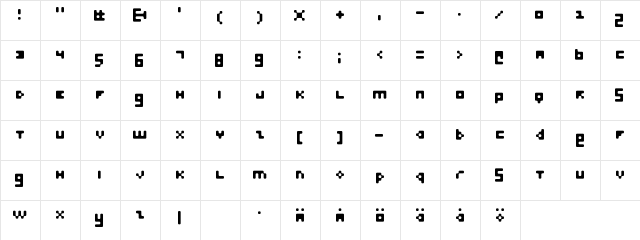
Felvetica Regular
Design Context for Felvetica Typeface
Felvetica takes a measured approach to typography — its balanced proportions and neutral character make it a reliable workhorse for both digital and print work.